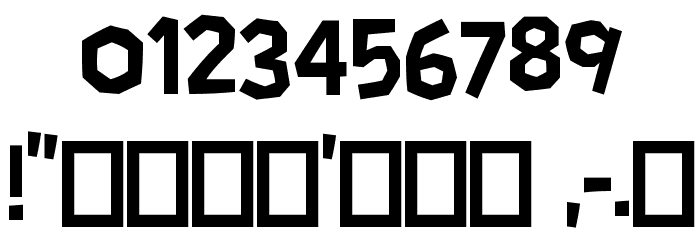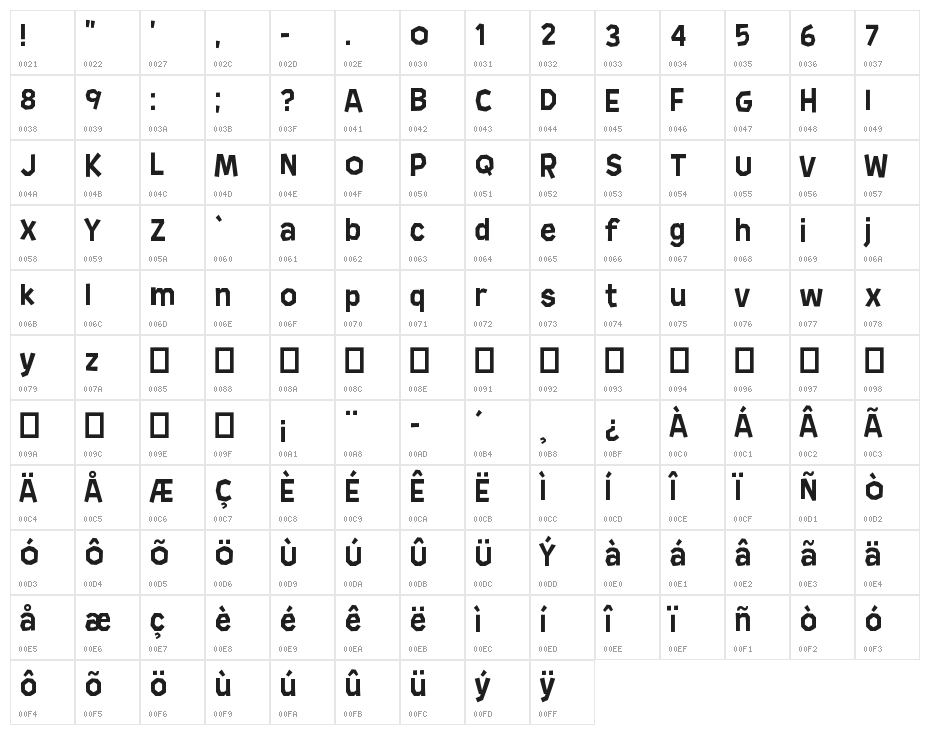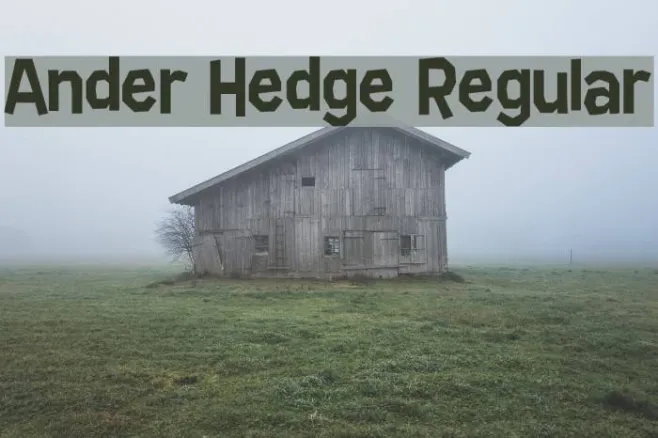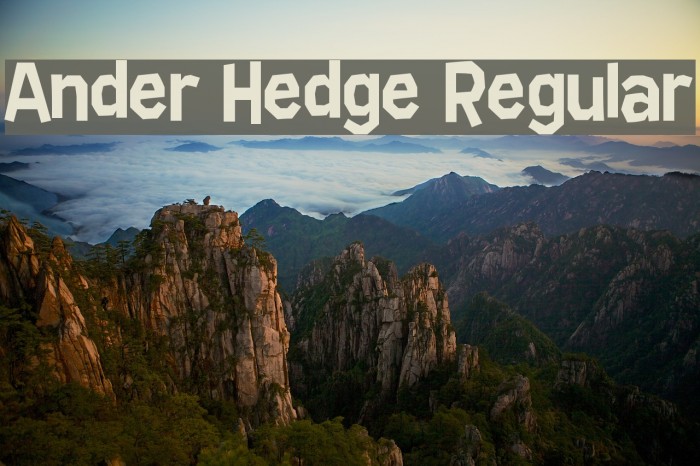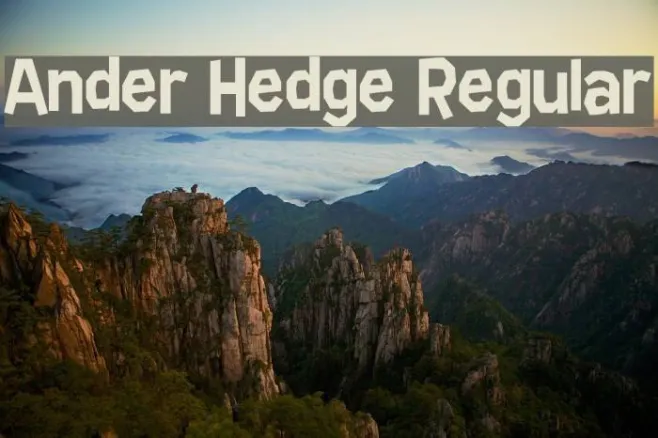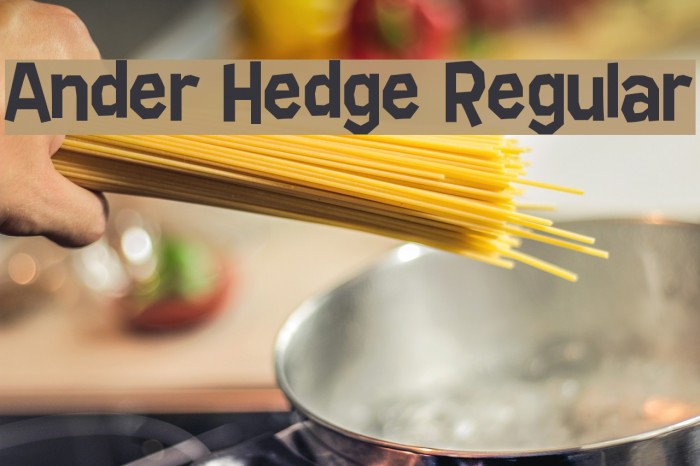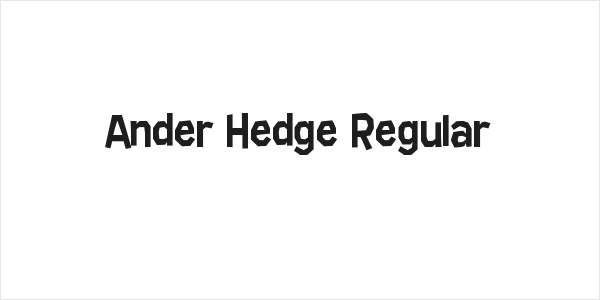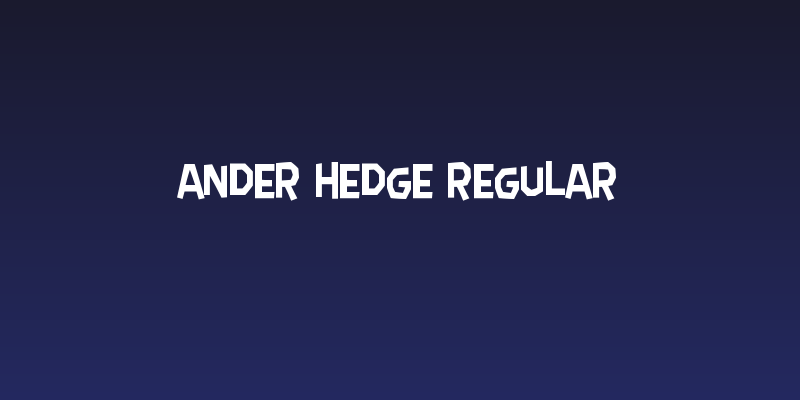
Ander Hedge Regular Font
Ander Hedge Regular Description
This font features a bold and geometric style with angular edges and a strong presence. The uppercase and lowercase letters maintain a consistent width, creating a uniform appearance. The characters are designed with sharp corners and straight lines, giving a modern and edgy feel. The numbers and special characters follow the same design principles, ensuring cohesion across all elements. This font is ideal for projects that require a striking and contemporary look, such as branding, posters, and headlines.
| Proposed Projects | Branding, posters, headlines, and any project needing a modern, striking appearance. |